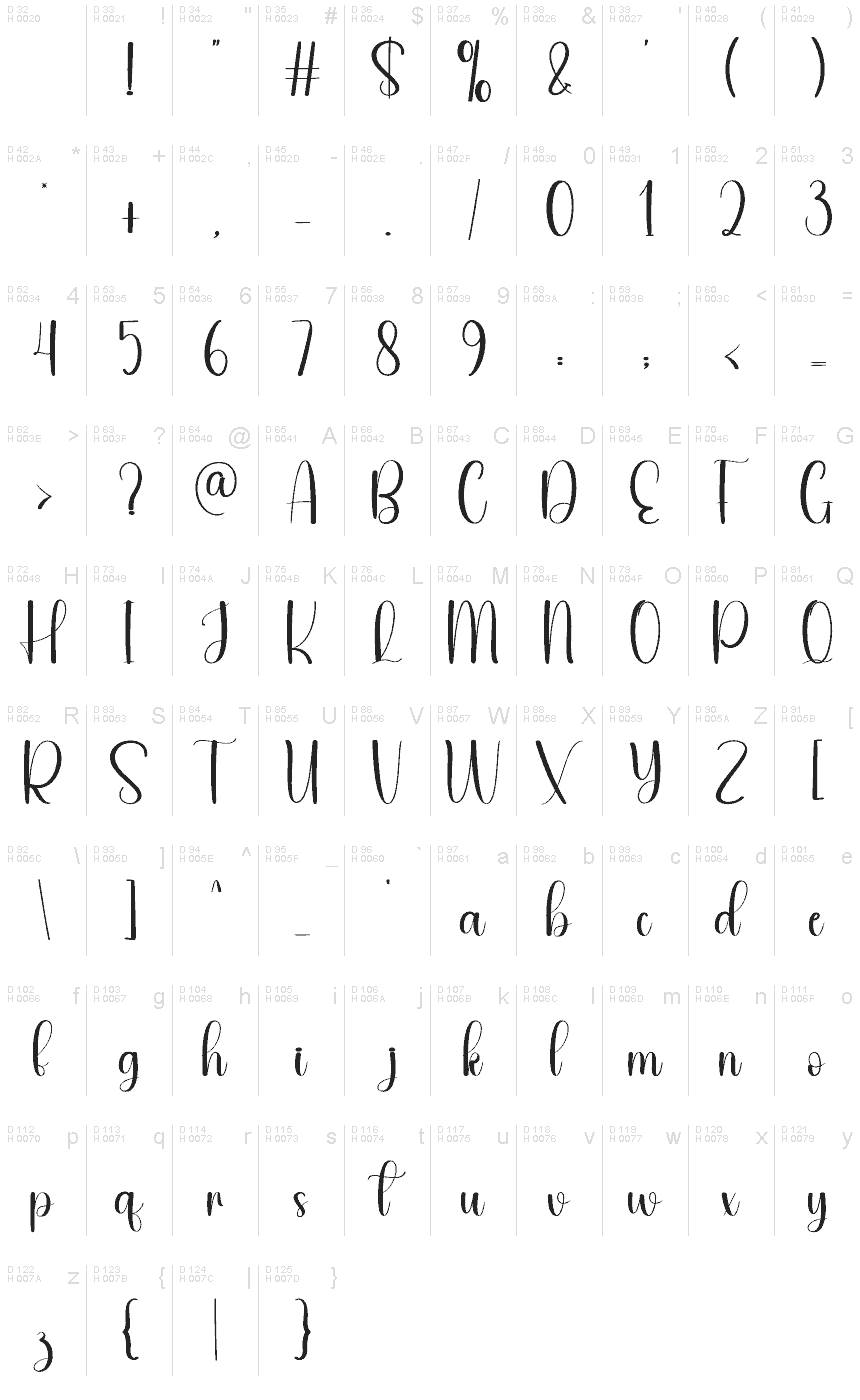
Heycute
Heycute font by Andi Moz is a free calligraphy font whose elegant condensed letters form an incredibly stylish script. The flowing handmade style takes over and gives the typeface its modern look and naturally inviting mood. Heycute is one of those gems suitable for branding where it can be combined with visuals in logos, edited photos, brand packaging, etc.
Apply this resource on banners, ads, social media posts (like Instagram posts), apparel items such as T-shirts and hoodies, captions for websites like blogs and digital magazines, printed magazines in general texts or titles. Use it to create personalized thank-you notes as a sign of courtesy after important events such as weddings and engagements.